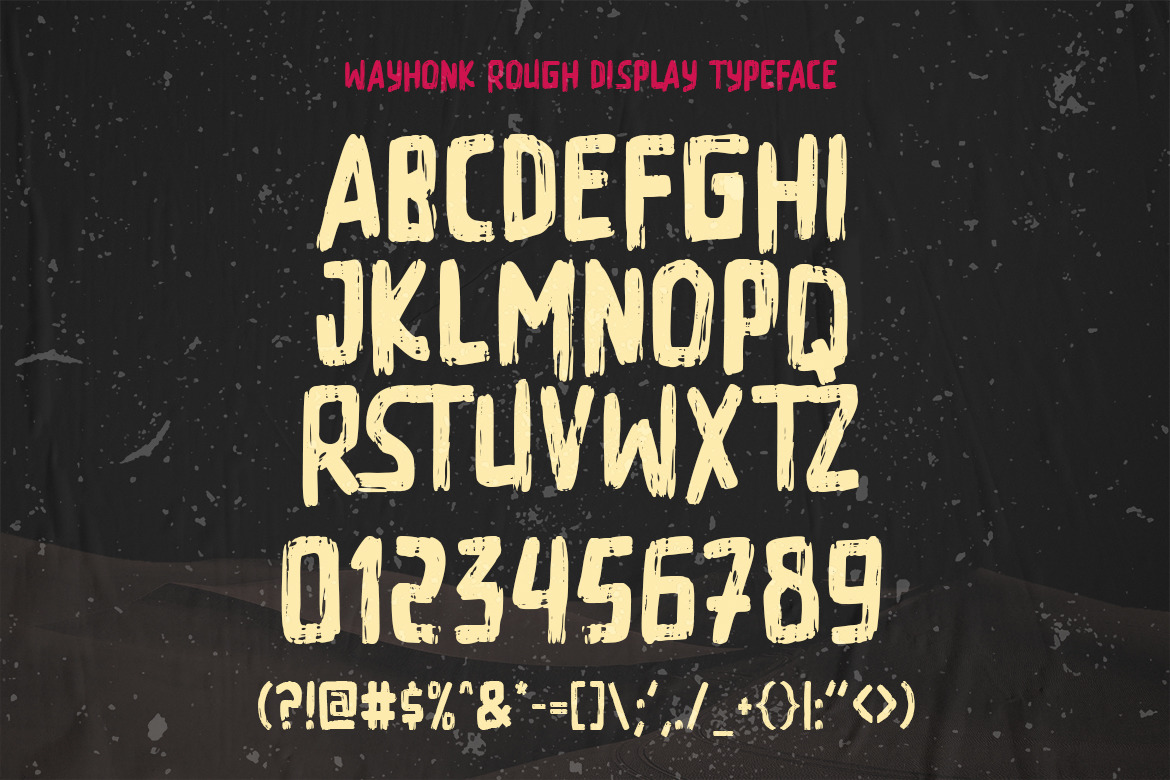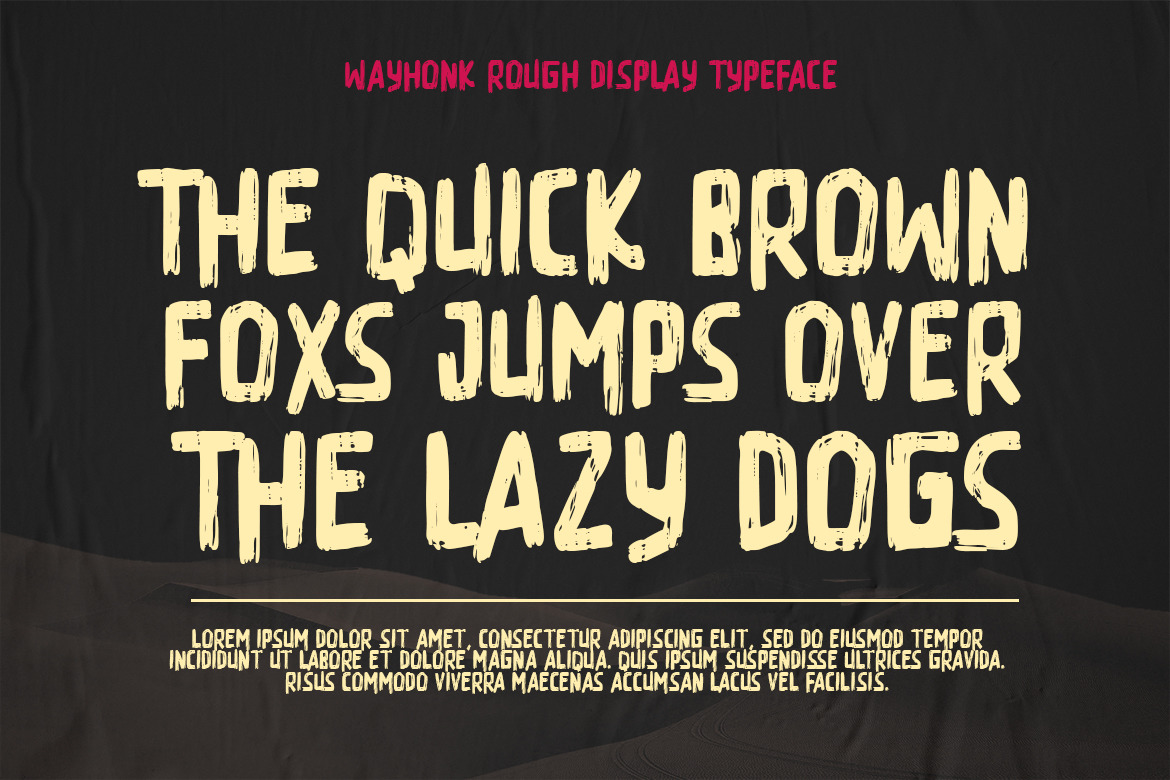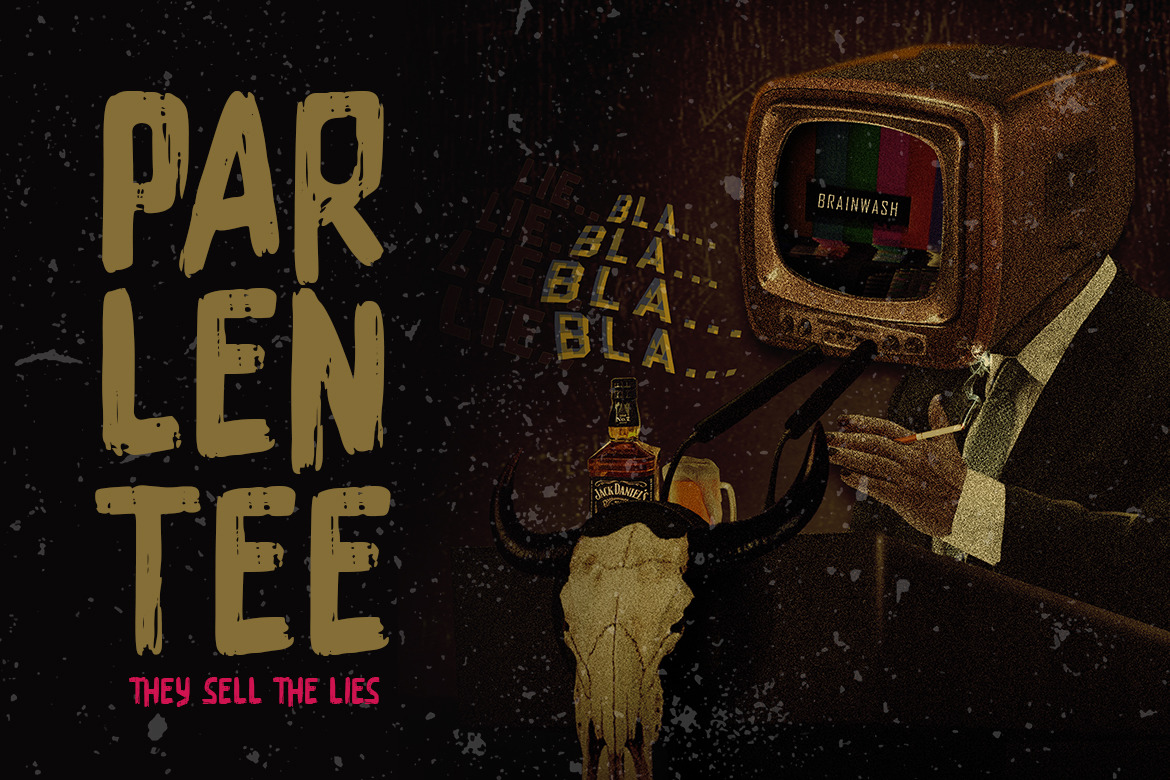
Wayhonk - Rough Display Typeface
Wayhonk is a rough,thick and bold display typeface. This strong and dynamic font can easily become your favorite. It can be used for books, magazines, social media posts, invitations, and so much more! So add this to your creations and take your designs to the next level!